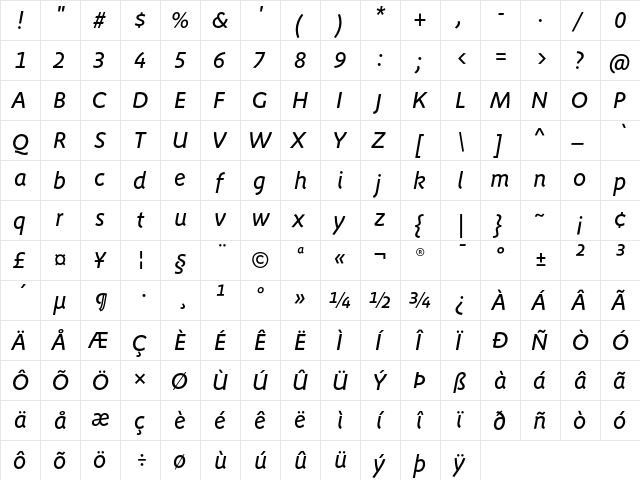
MeganoLF-MediumItalic Regular
Design Context for MeganoLF-MediumItalic Typeface
MeganoLF-MediumItalic offers clean, dependable letterforms without strong stylistic allegiance, making it a practical choice for designers who need flexibility. Its italic angle brings a sense of urgency and motion to the letterforms.
Pro Tip: Try MeganoLF-MediumItalic for annotation and caption copy alongside an upright companion — the contrast in angle creates a dynamic but ordered typographic system.